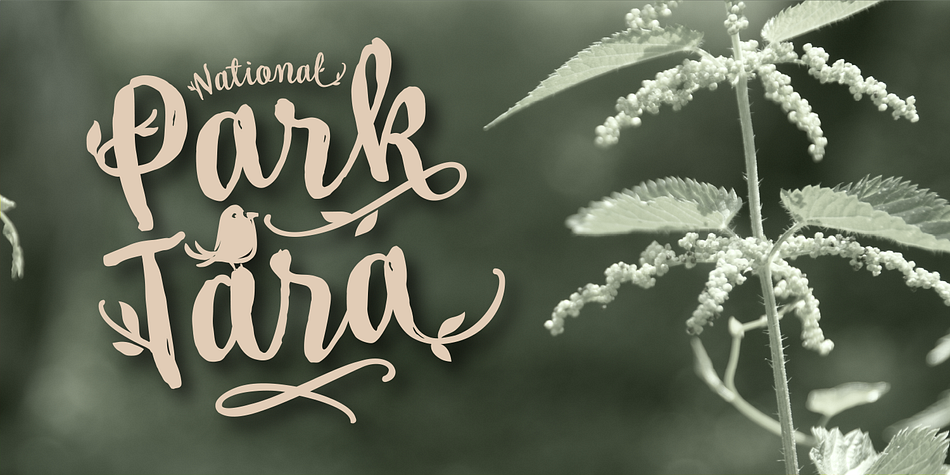
My Tara
Designed by Lazar Dimitrijević, My Tara is a multiple classification font family. This typeface has three styles and was published by Posterizer KG.
My Tara is a handwritten script typeface with a casual, but rough look and sketched woody texture. Because of the fluidity, there are plenty of Standard Ligatures to avoid frequent repetition of letters. There are ligatures created for Cyrillic too.
If you want floral initials, first or last letter in a word, you can use My Tara Ornaments font with sketched and inky texture. If you need drawings for your artwork, you can choose My Tara Dingbats, with more than 300 crocky drawings of flora and fauna, authentic for National Park Tara.
My Tara is the perfect choice for all natural and authentically beautiful things.